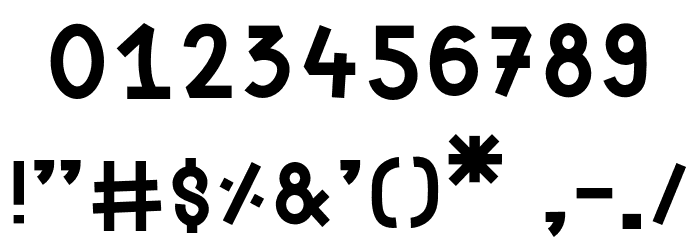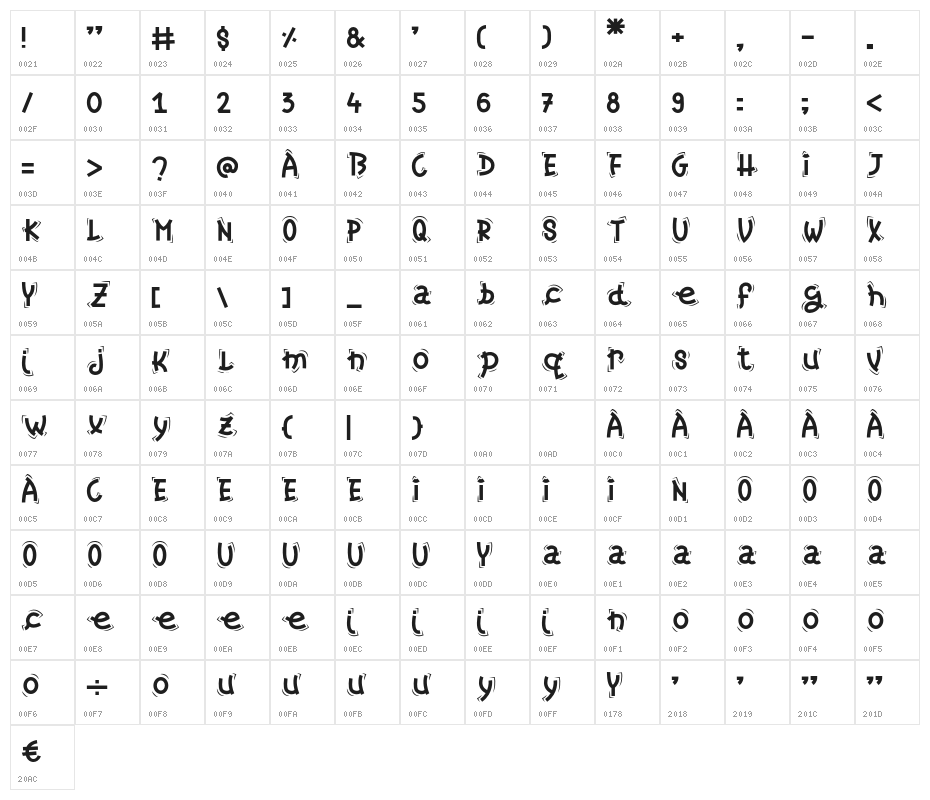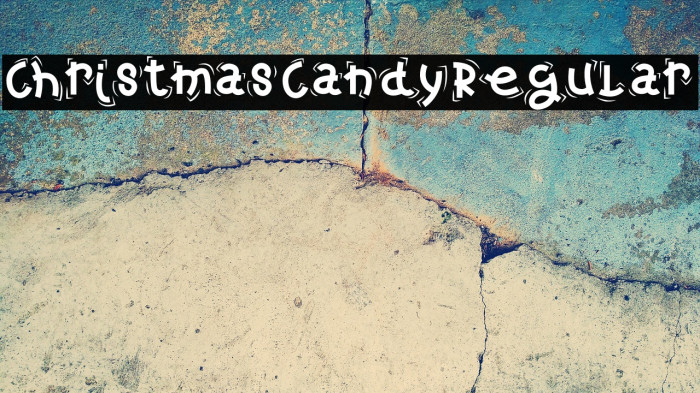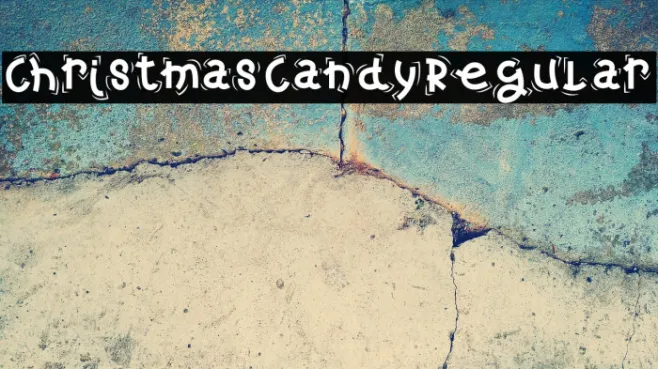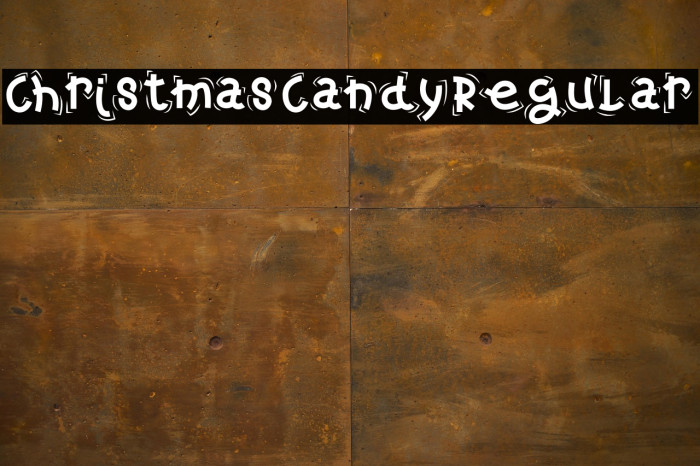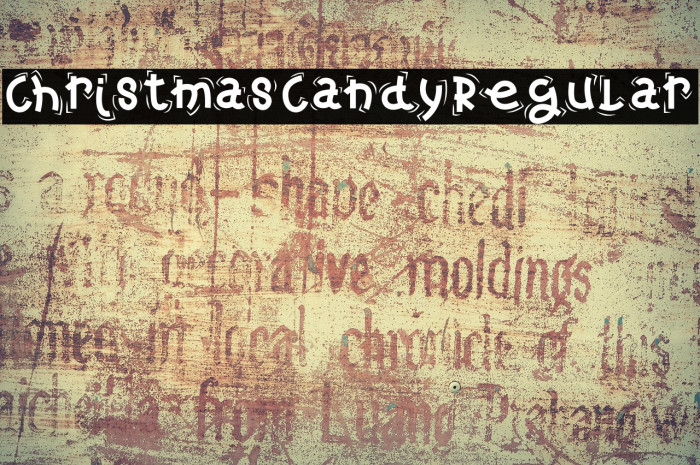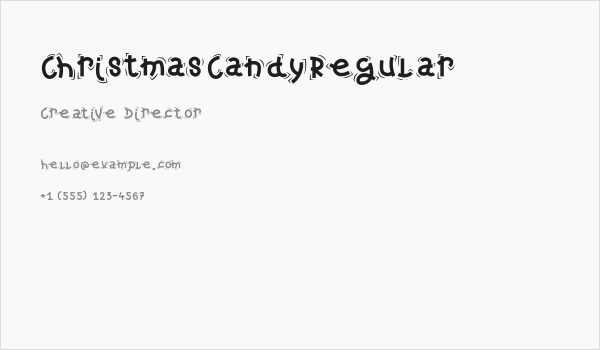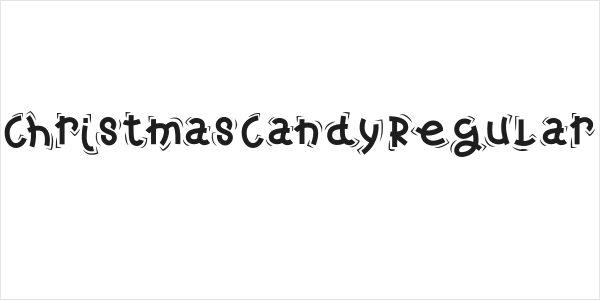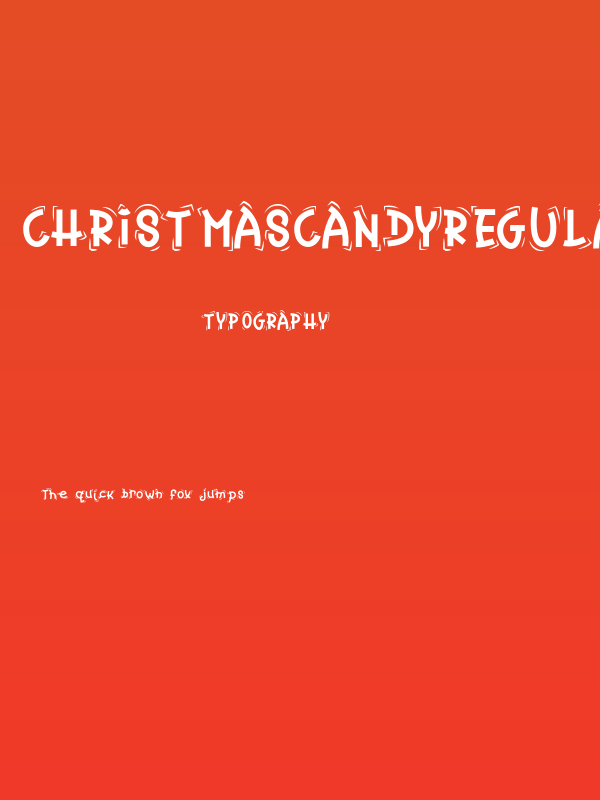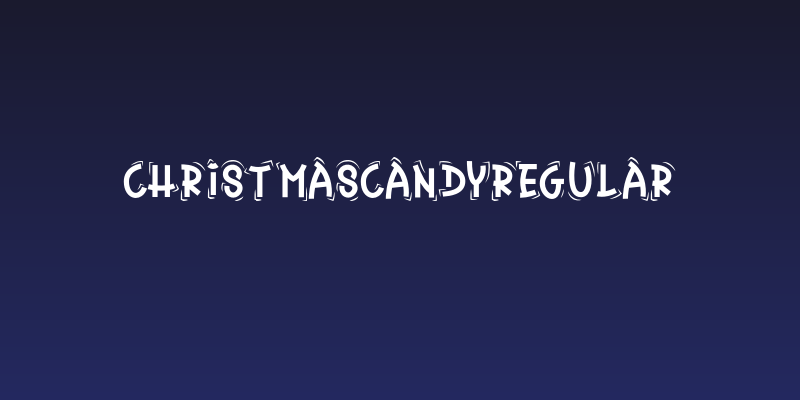
ChristmasCandyRegular Font
ChristmasCandyRegular Description
This playful and festive typeface features a whimsical design with bold, exaggerated strokes and a shadow effect that adds depth and dimension. The uppercase and lowercase letters are characterized by their unique, irregular shapes, giving them a hand-drawn appearance. The numbers and special characters maintain this lively style, making the font ideal for holiday-themed projects. Its decorative nature is perfect for capturing attention and conveying a sense of fun and celebration. The font's boldness and distinct style make it stand out, while the shadow effect enhances its visual appeal.